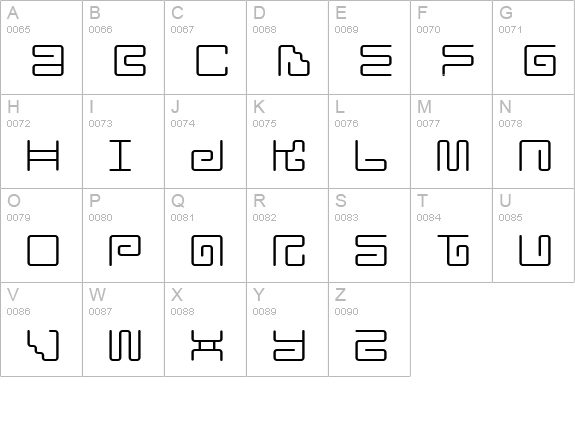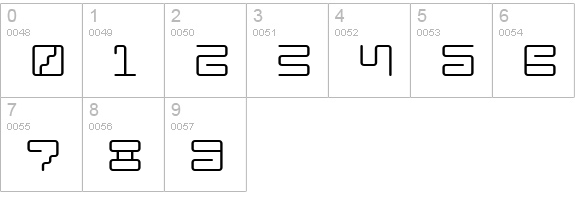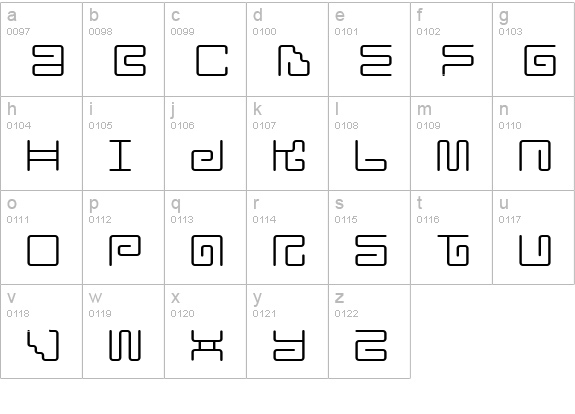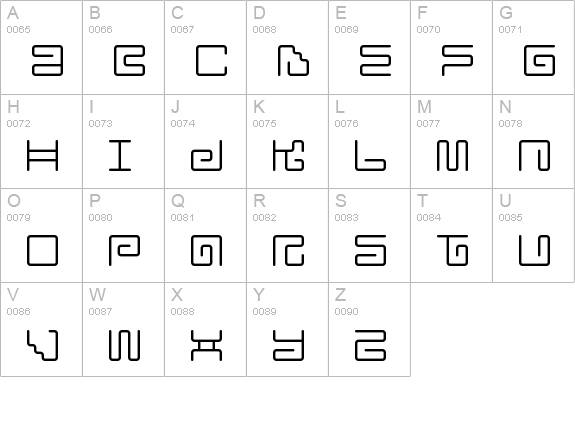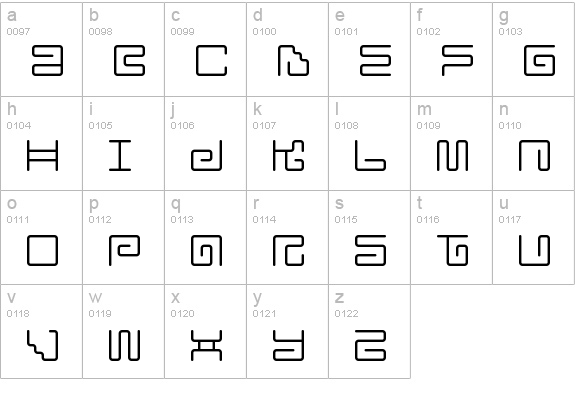
Introducing the captivating Iron Lounge font, a versatile typeface that effortlessly combines elegance and strength. This font is designed to make a lasting impression, whether it's used for branding, logo design, editorial projects, or any creative endeavor that requires a touch of sophistication. With its sleek and modern appearance, Iron Lounge font commands attention and exudes confidence. The letterforms are meticulously crafted, boasting clean lines and balanced proportions that lend a sense of professionalism to any design. Each character is carefully considered, resulting in a harmonious and visually stunning typeface. One of the most remarkable aspects of Iron Lounge font is its versatility. It seamlessly adapts to various design styles, effortlessly enhancing the visual appeal of any project. From bold headlines to subtle body text, this font excels in conveying messages with clarity and impact. And the best part? Iron Lounge font is free! Yes, you read it right. This remarkable font is freely available to download at FontsMarket.com. The creators behind this masterpiece believe in the power of accessibility, allowing designers, creatives, and enthusiasts alike to have the opportunity to experience the magic of Iron Lounge font without any barriers. So, whether you're a professional designer looking to elevate your work, a passionate hobbyist seeking to explore new creative possibilities, or simply someone who appreciates the beauty of typography, Iron Lounge font is here to inspire and empower you. Download it today from FontsMarket.com and unlock a world of endless design possibilities.